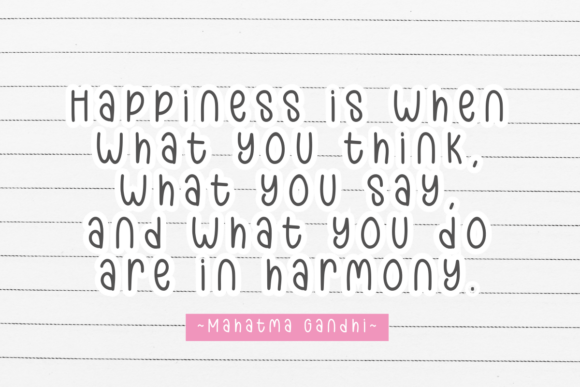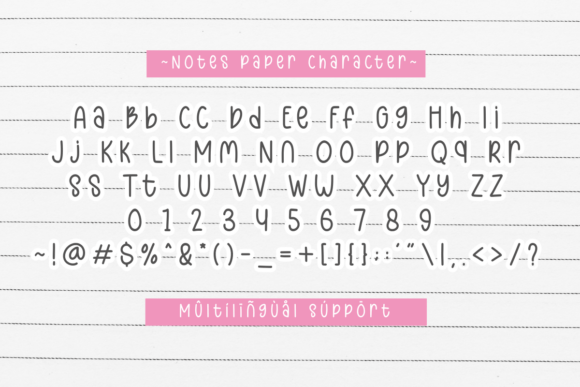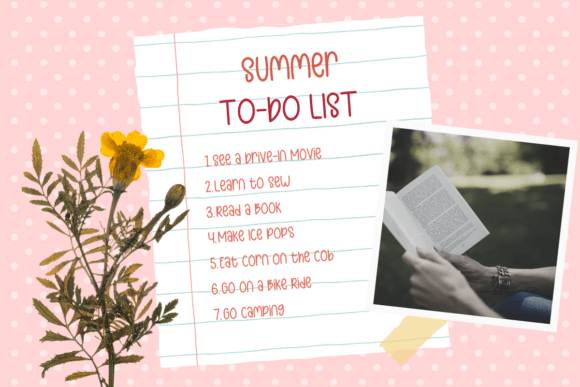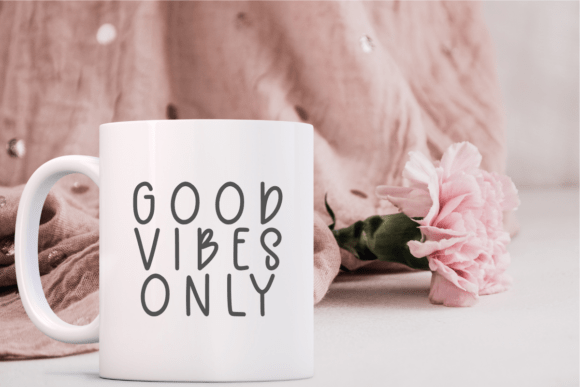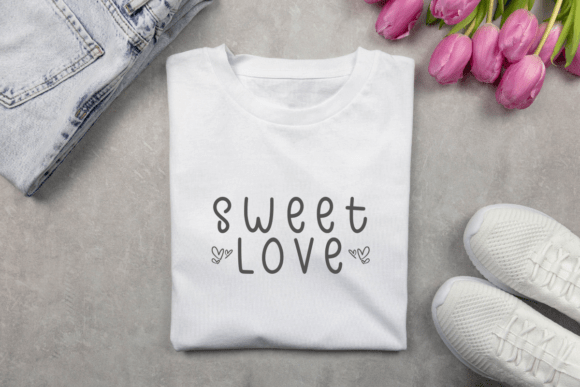
Introduction to Notes Paper Font
Notes Paper is a cute and playful handwriting font, perfect for planners, stickers, cards, quotes, and craft projects.
Ideal for creative moms who love DIY, journaling, and Cricut crafts .
Key Features of Notes Paper Font